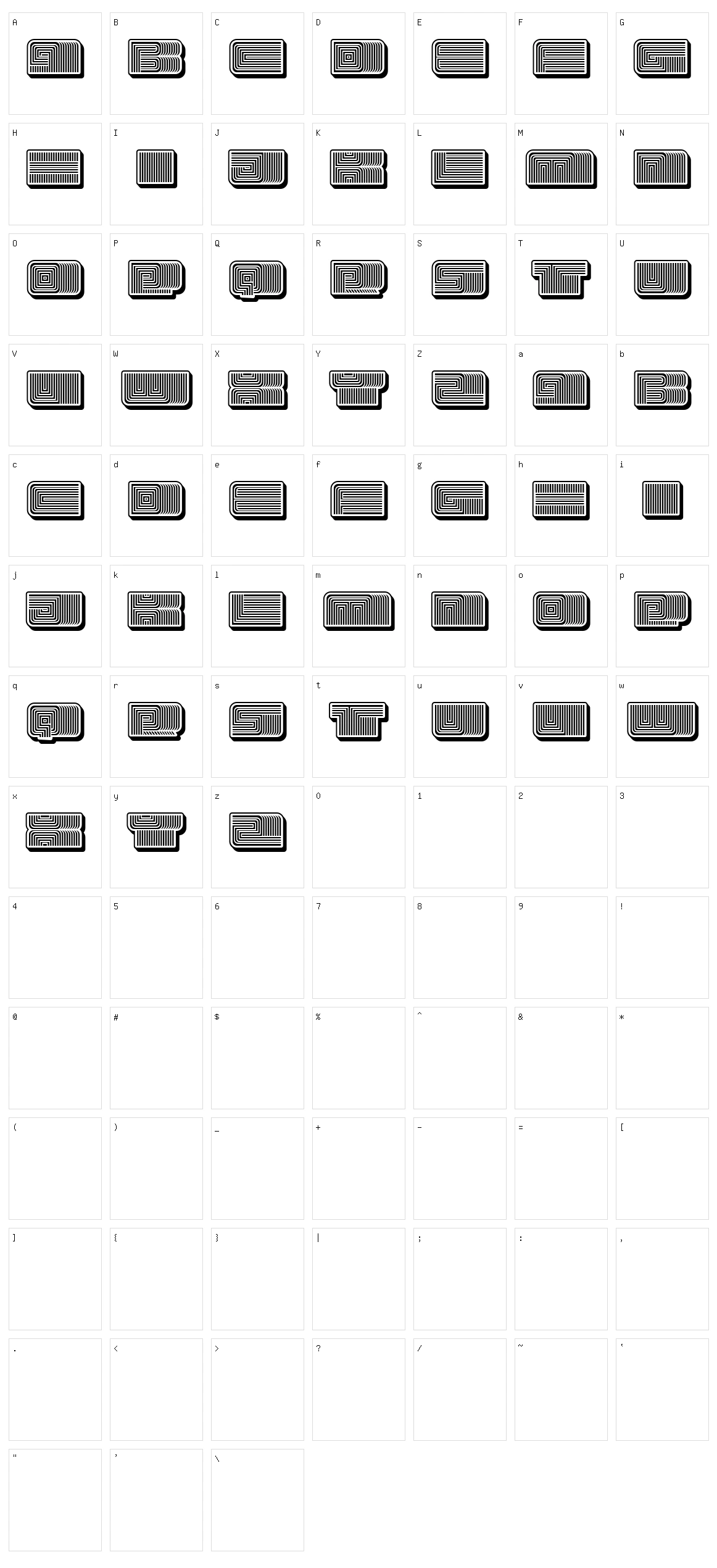
The free font Turkish is carefully designed by Vladimir Nikolic, showcasing a thoughtful balance of creativity and usability and falls under the Retro font style. When you download the ZIP file, it contains only 159.59 KB of font files, making it lightweight and quick to download. Please review the license details below to understand permitted usage and distribution rights. If license information is not available, we recommend using this font for personal projects only or contacting the author directly for commercial usage permissions.